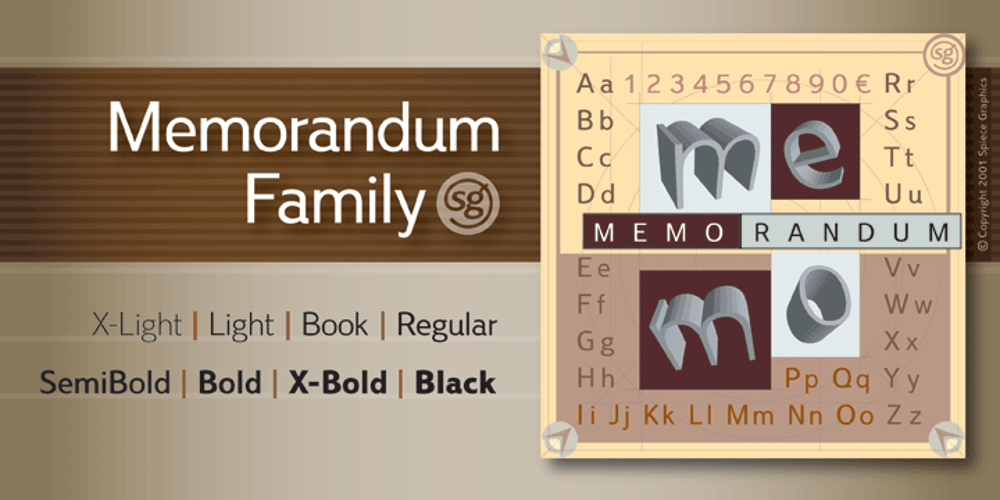
Memorandum SG
Memorandum SG font
Memorandum SG Font Family was designed by Jim Spiece and published by Spiece Graphics. Memorandum SG contains 8 styles and family package options. Here is an extremely efficient and uncluttered typeface that you can use in a variety of situations. Memorandum’s orderly and methodical nature makes it a natural for long blocks of text, for captions, or for corporate slogans. Try using this typeface where space is limited and legibility is a big concern. And Memorandum is great for constructing tables and charts for business presentations, too. Memorandum is now available in the OpenType Std format. Expanded pre-built fractions, numerators, denominators, and stylistic alternates are now combined in each style. These advanced features work in current versions of Adobe Creative Suite InDesign, Creative Suite Illustrator, and Quark XPress. Check for OpenType advanced feature support in other applications as it gradually becomes available with upgrades.